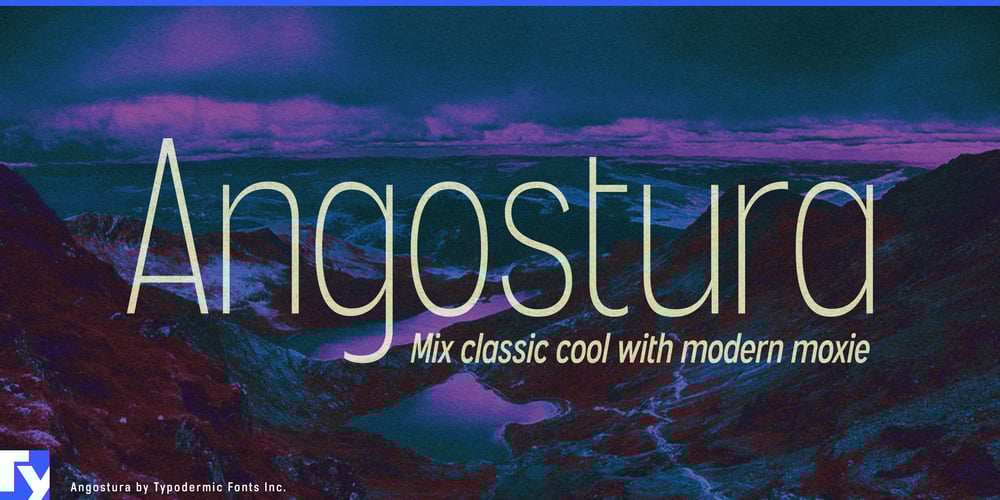
Angostura Font Family was designed by Ray Larabie and published by Typodermic. Angostura contains 17 styles and family package options. Step back in time with Angostura, a sans-serif typeface that captures the vibrant spirit of America’s golden age. This typographic gem evokes the swagger of 1940s diners, the glamour of 1950s Hollywood, and the optimism of a nation in full swing.Angostura’s DNA is unmistakably rooted in the iconic American sign lettering that defined an era. Its low crossbars pay homage to the sleek industrial deco signage that adorned the cityscapes of yesteryear, while the monocular “a” and “g” tip their hat to the mid-century Futura craze. The result? A typeface that’s both a time capsule and a fresh voice for modern design.But Angostura isn’t content to be a one-trick pony. This versatile typeface family runs the gamut from Hairline to Black, offering designers a full palette to paint with words. Need to channel the grit of a back-alley speakeasy? The heaviest weights have you covered. Looking for the elegance of a high-end department store window? The lighter styles step up to the plate.For those seeking to push the envelope further, Angostura unveils its ace in the hole—spray-paint, wood grain, and stencil variants. These special editions employ clever ligatures to create custom letter pairs, infusing your work with an authenticity that practically leaps off the page. It’s like having a master sign painter at your fingertips, ready to bring your vision to life with every keystroke.Angostura’s language support is as expansive as the American dream itself. From the bustling streets of Gothenburg to the sun-drenched plazas of Madrid, this typeface speaks fluently in a multitude of Latin-based tongues. Your message will resonate loud and clear, whether you’re designing for a local diner or an international ad campaign.In a world of cookie-cutter designs, Angostura stands tall—a beacon of individuality in a sea of conformity. It’s more than just a font; it’s a time machine, a storyteller, and a creative powerhouse all rolled into one. So why settle for the ordinary when you can infuse your projects with a dose of mid-century magic?Grab a bottle of Angostura and mix up something extraordinary. Your designs will thank you, and your audience? They’ll be shaken, stirred, and coming back for more.